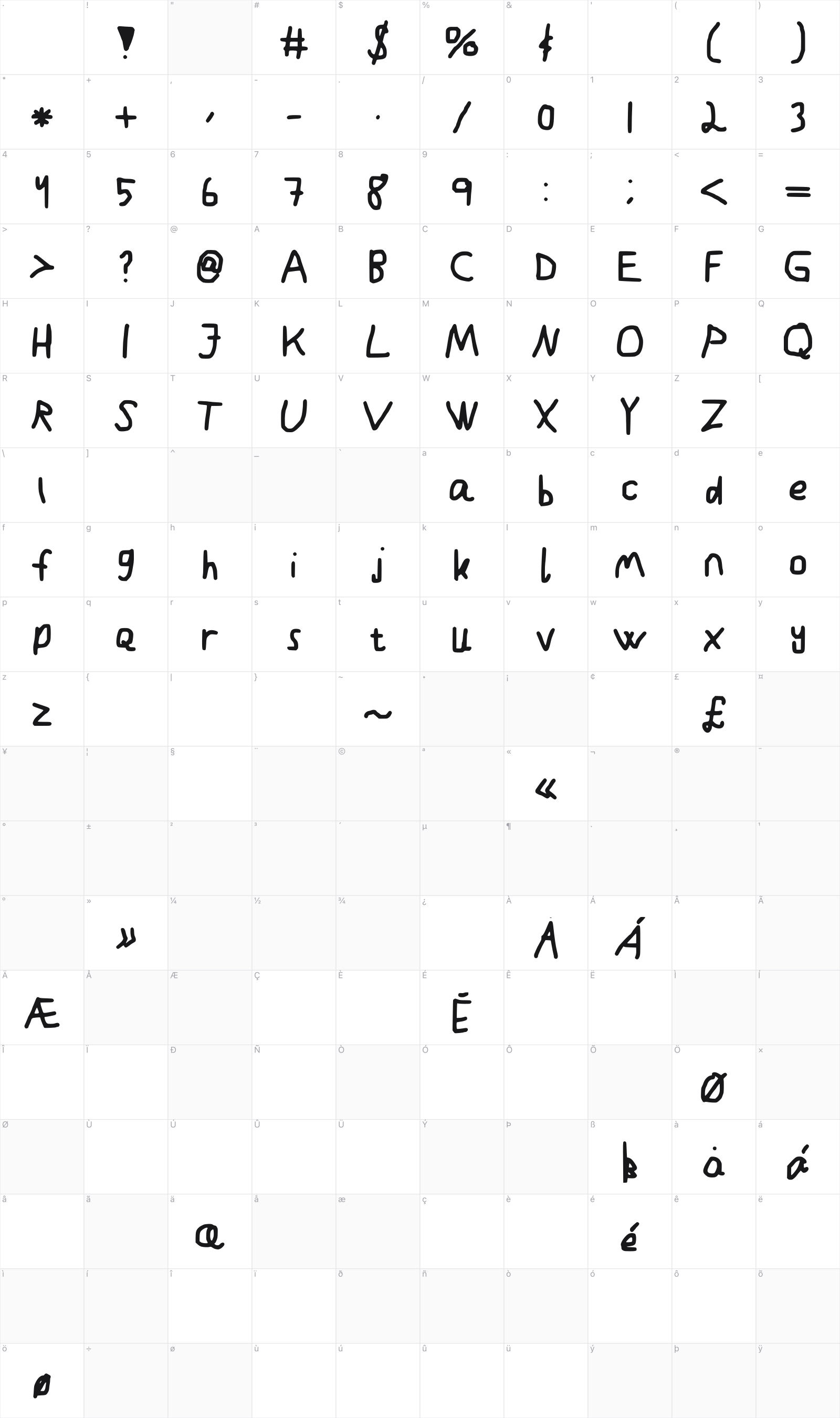
Kindergarden
by Andre Haugen
Kindergarden is a rounded, casual handwritten face by Andre Haugen that genuinely looks like a kid grabbed a marker and went for it. The letterforms are loose and uneven in a way that feels natural rather than forced, with soft edges and a playful wobble to each character. A solid choice for children's books, educational materials, or any project that needs to feel young, friendly, and unpretentious.